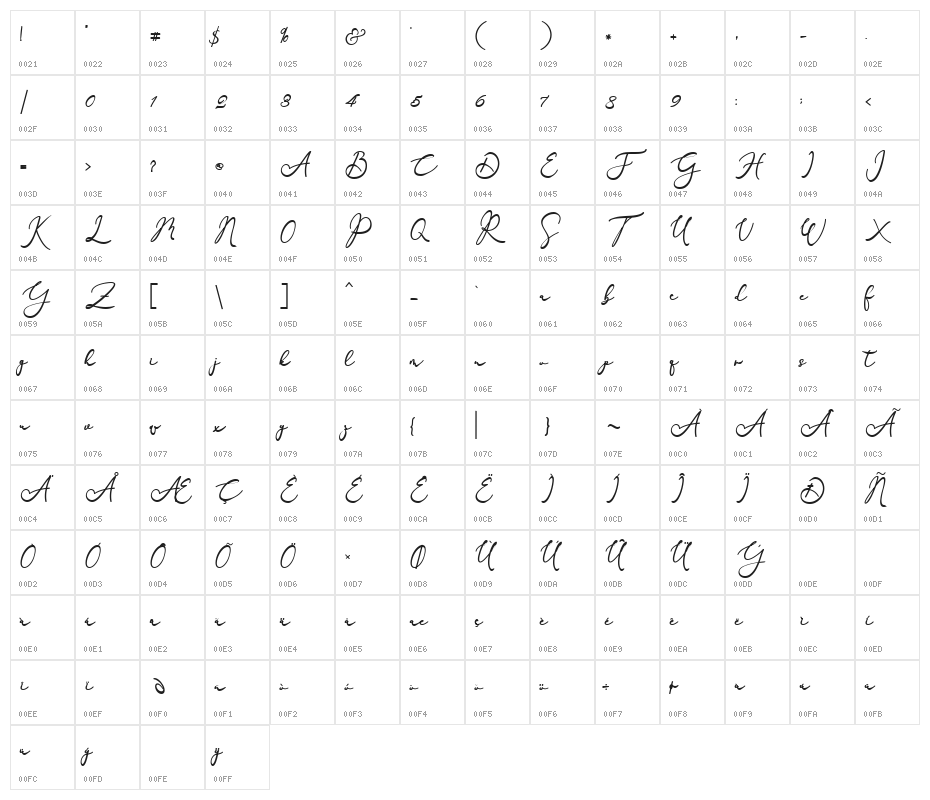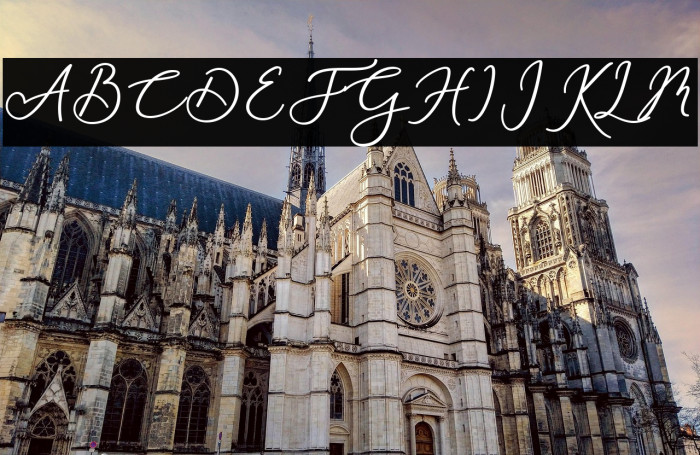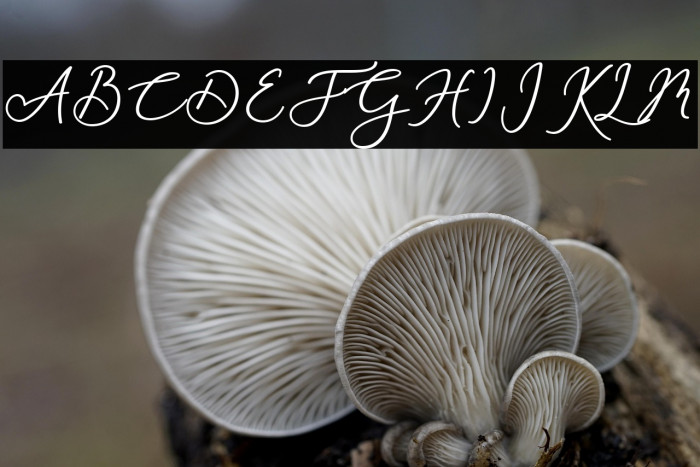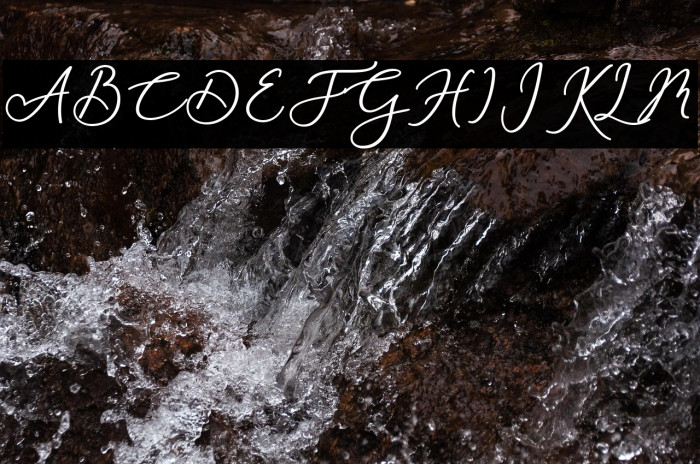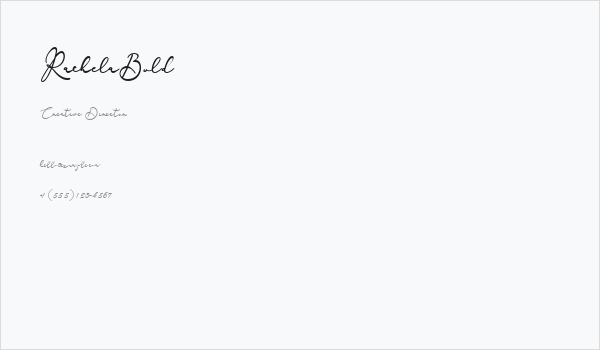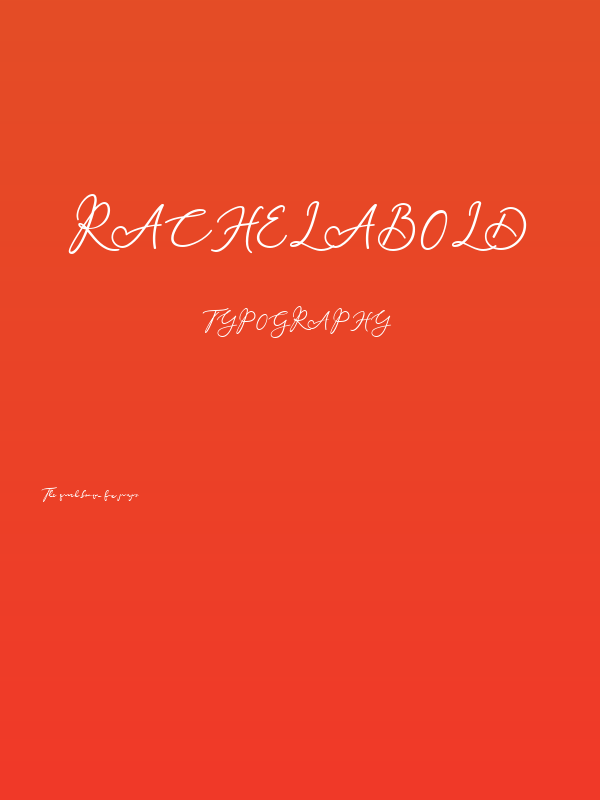
RachelaBold Font
RachelaBold Description
This elegant script font features fluid, cursive strokes that give it a sophisticated and graceful appearance. The letters are interconnected, creating a seamless flow that mimics natural handwriting. The uppercase letters are slightly more ornate, with flourishes that add a touch of flair, while the lowercase letters maintain a consistent, smooth line. The numerals and special characters are designed to match the overall style, ensuring a cohesive look across all text. This font is perfect for projects that require a personal, handwritten touch, such as invitations, greeting cards, or branding materials.
| Overall Style | Elegant, Handwritten |
| Proposed Projects | Ideal for wedding invitations, personal branding, greeting cards, and elegant stationery. |